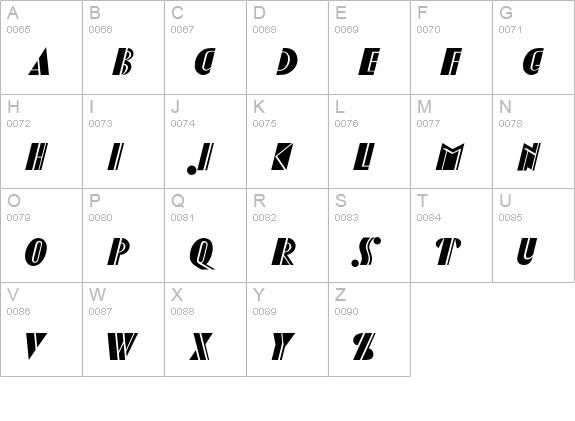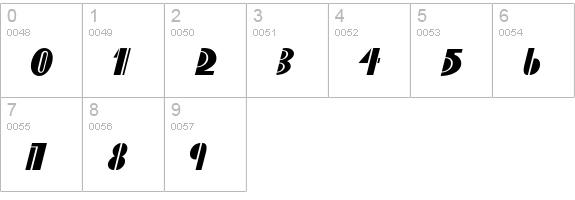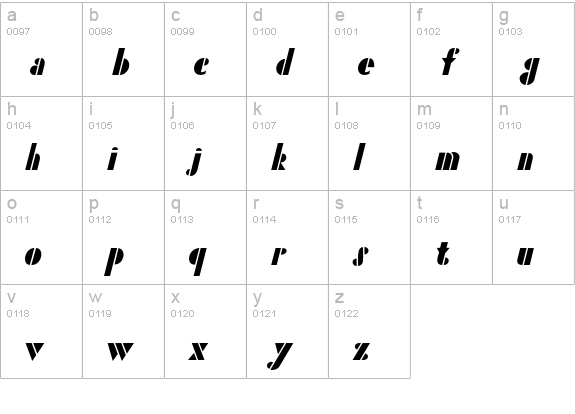
P22Sinel Font Details
P22Sinel is a remarkable font that combines elegance and versatility in a truly captivating way. With its sleek and modern design, this typeface is perfect for a wide range of creative projects, from logos and branding to editorial layouts and web designs. The clean lines and balanced proportions of P22Sinel make it a true standout among other fonts. Its sophisticated letterforms effortlessly exude a sense of style and refinement, making it ideal for those seeking a font that will leave a lasting impression. But what truly sets P22Sinel apart is that it is not only visually stunning, but also freely available to download. Yes, you heard it right - this exceptional font can be yours without any cost. Thanks to FontsMarket.com, you can easily access and download P22Sinel for your personal and commercial projects, without having to break the bank. Whether you're a professional designer or a hobbyist, P22Sinel offers endless possibilities. Its extensive character set includes both uppercase and lowercase letters, numerals, punctuation marks, and various special characters, ensuring that you have all the tools you need to bring your creative visions to life. So why wait? Experience the elegance and versatility of P22Sinel today. Head over to FontsMarket.com and start exploring the endless possibilities this free font has to offer. Don't miss this opportunity to elevate your designs with the timeless beauty of P22Sinel.